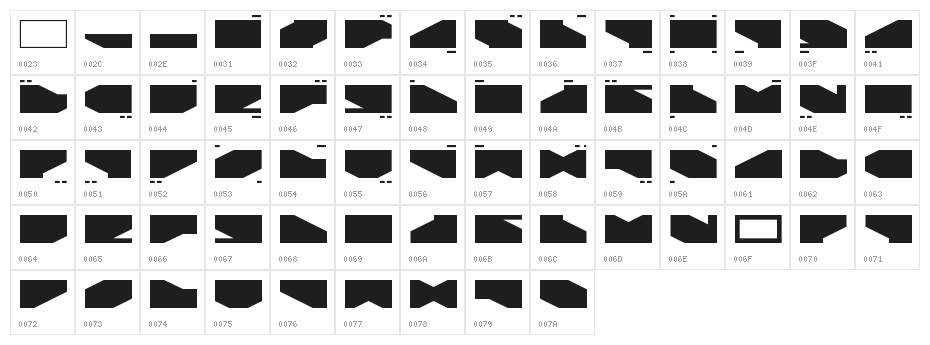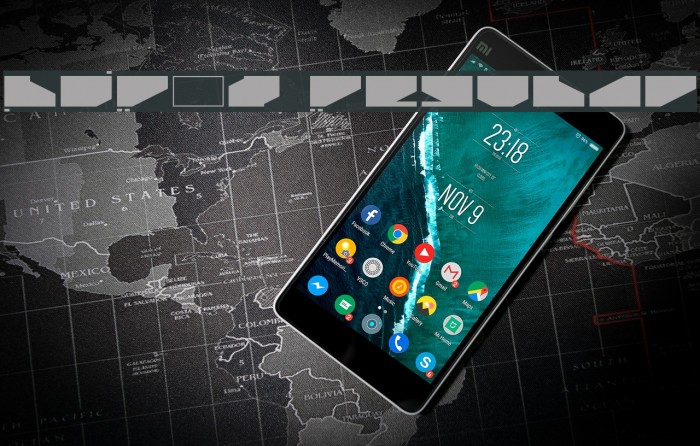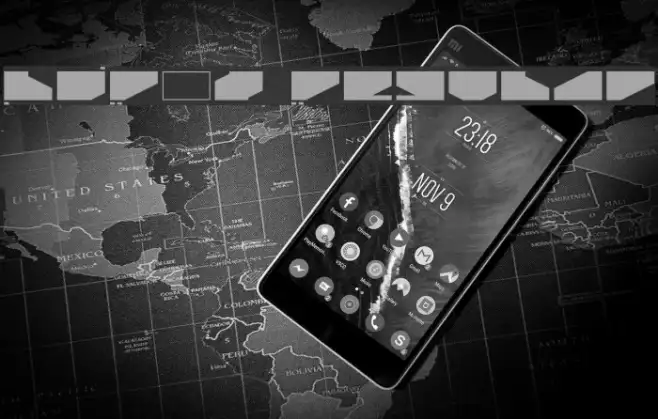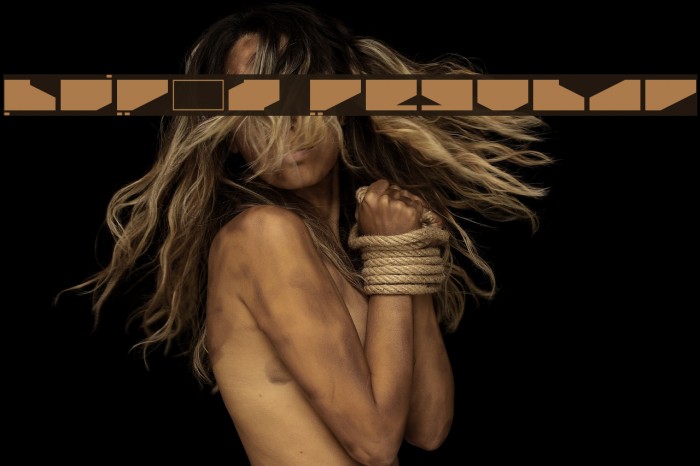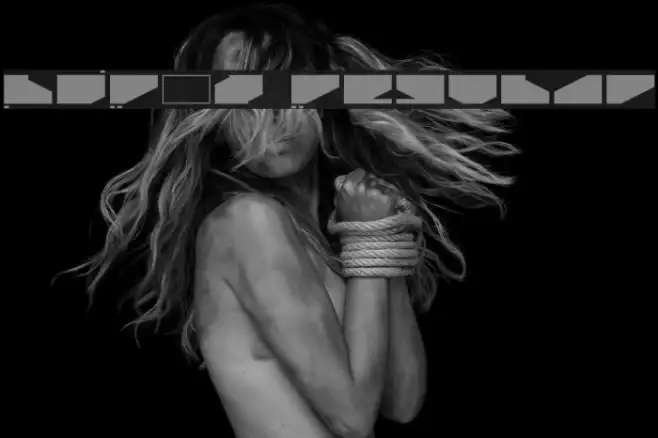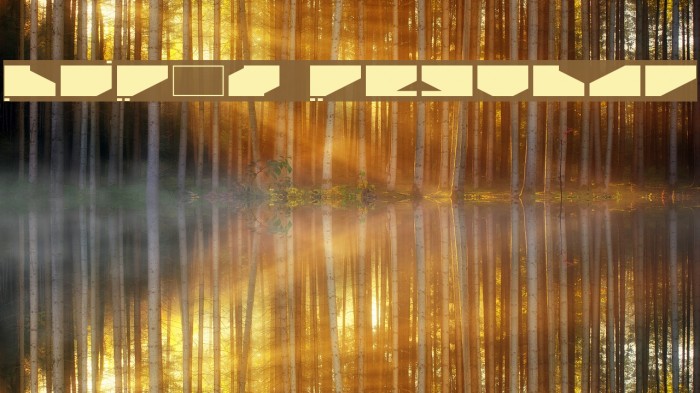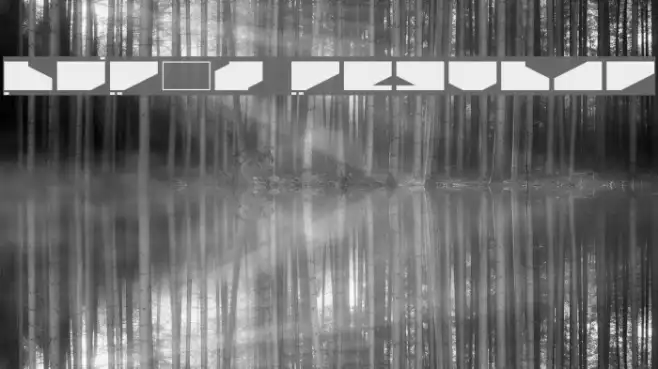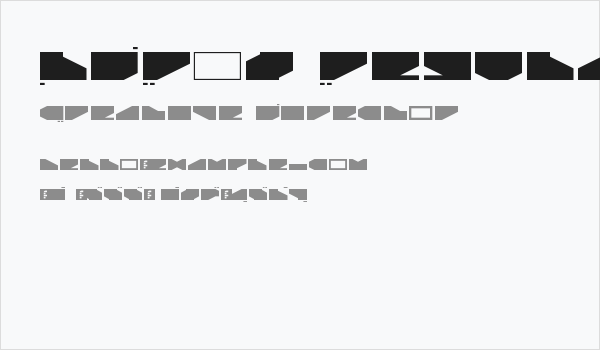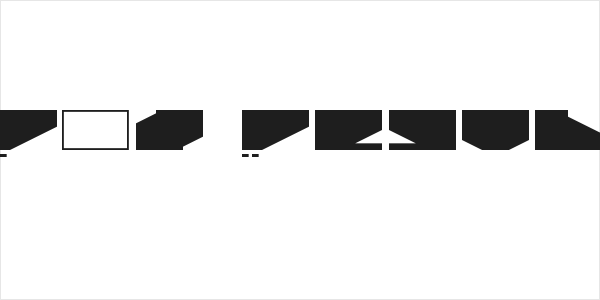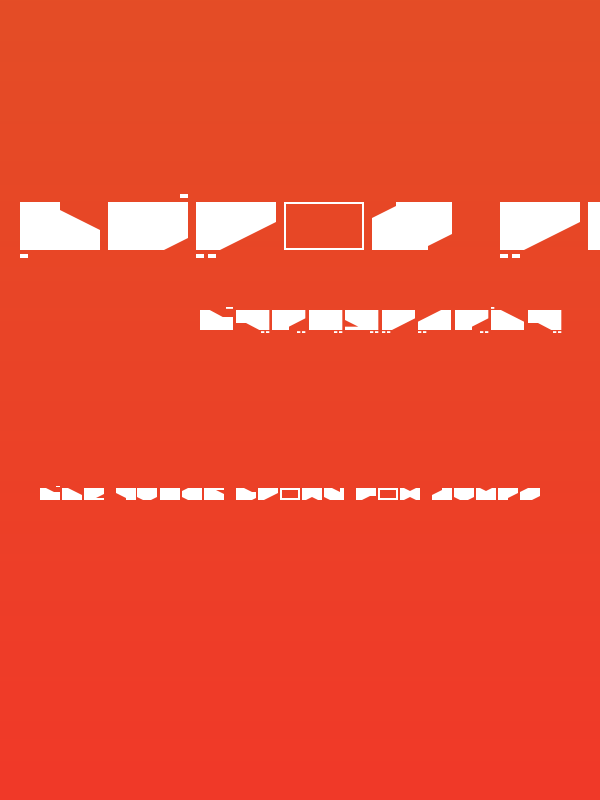
LDR#2 Regular Font
This font features a bold, geometric design with a futuristic aesthetic. Each character is constructed with solid, block-like shapes, giving it a strong and impactful presence. The letters are uniform in height and width, creating a cohesive and structured appearance. The use of sharp angles and straight lines contributes to its modern and digital feel. The font is highly stylized, making it suitable for projects that require a distinctive and eye-catching typeface. Its unique design elements, such as the consistent use of filled spaces and minimal negative space, enhance its visual appeal and make it stand out in any application.
Proposed ProjectsIdeal for technology branding, video game titles, sci-fi movie posters, and digital art projects.